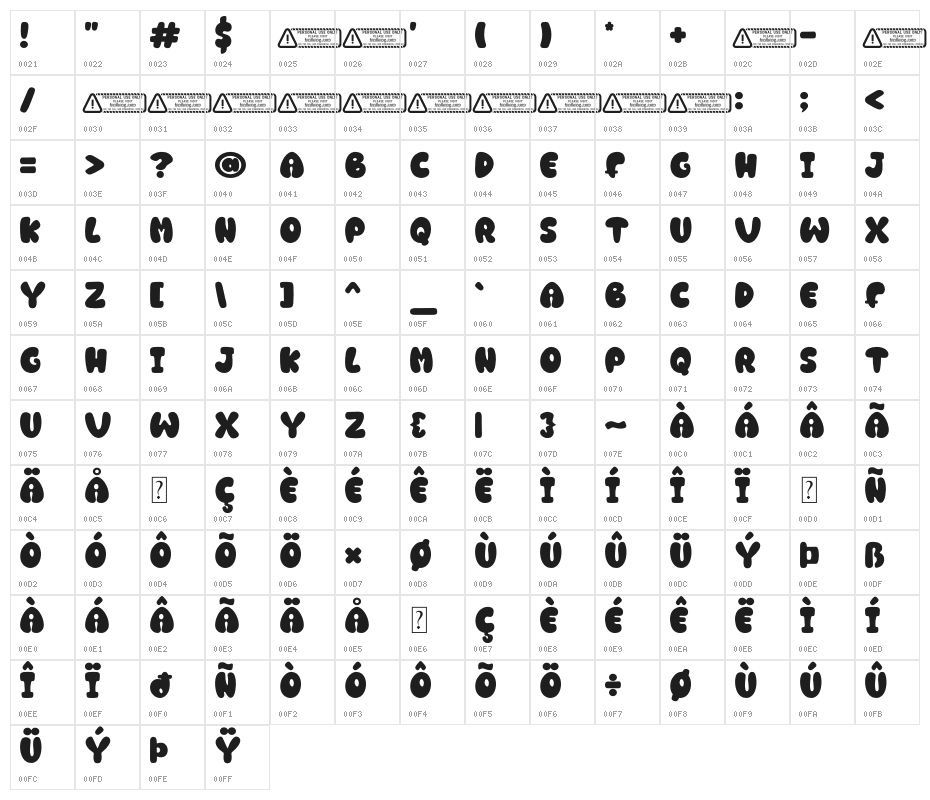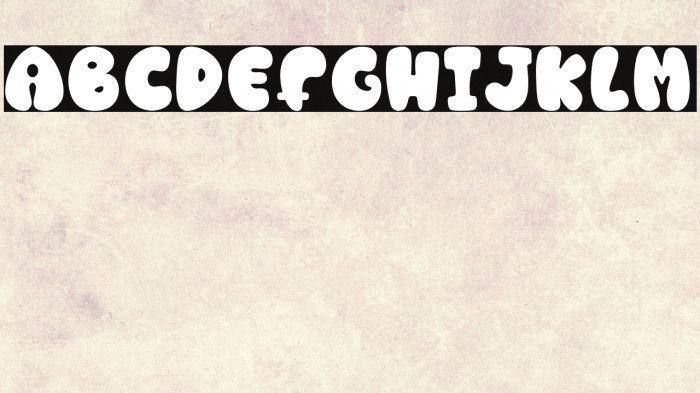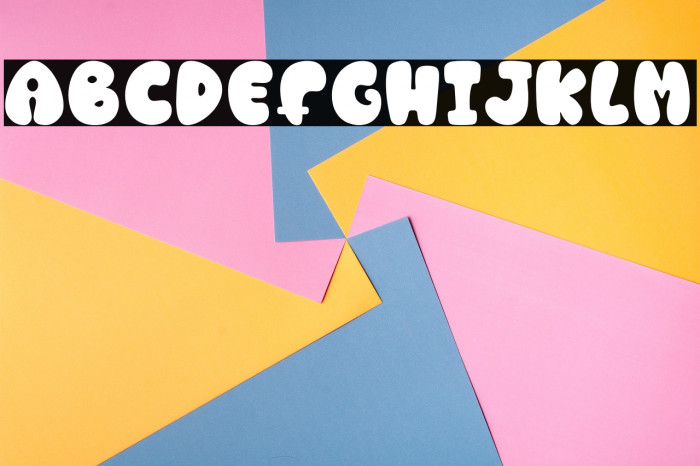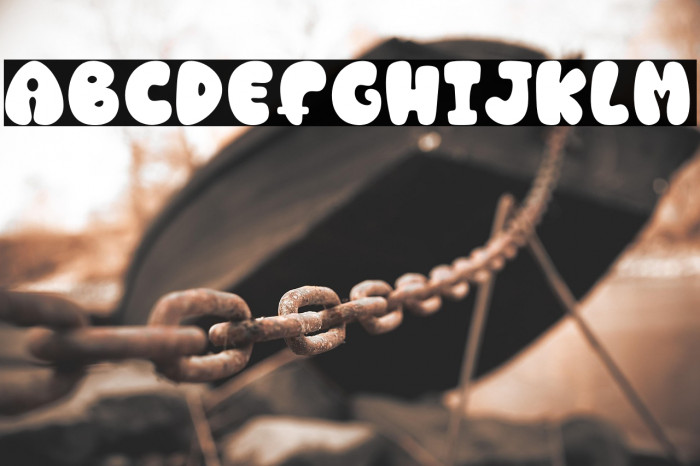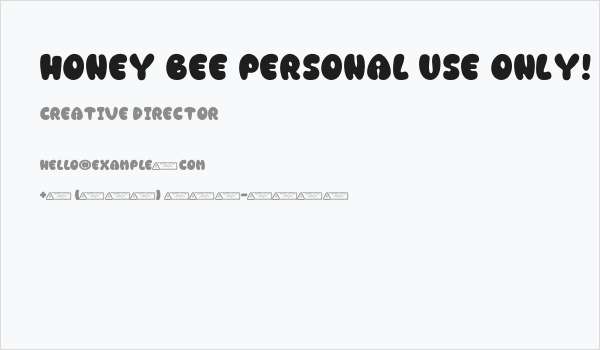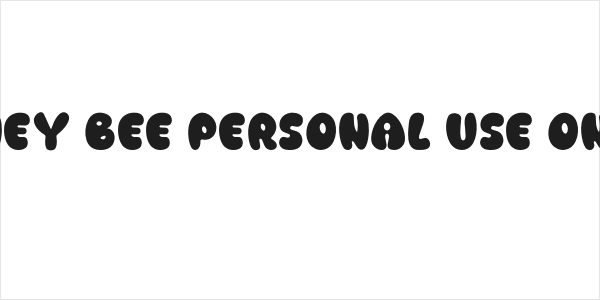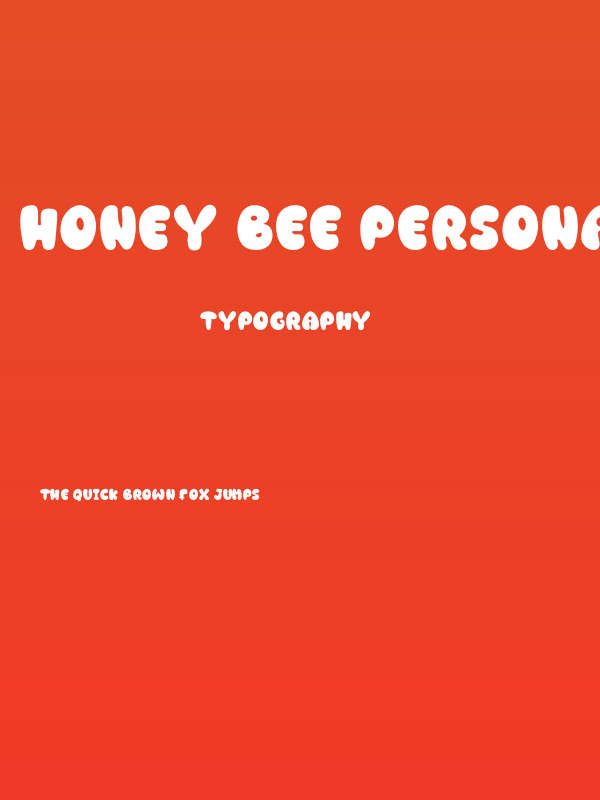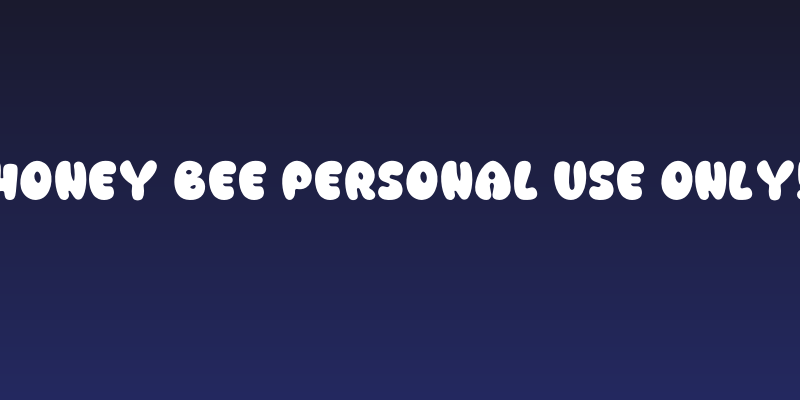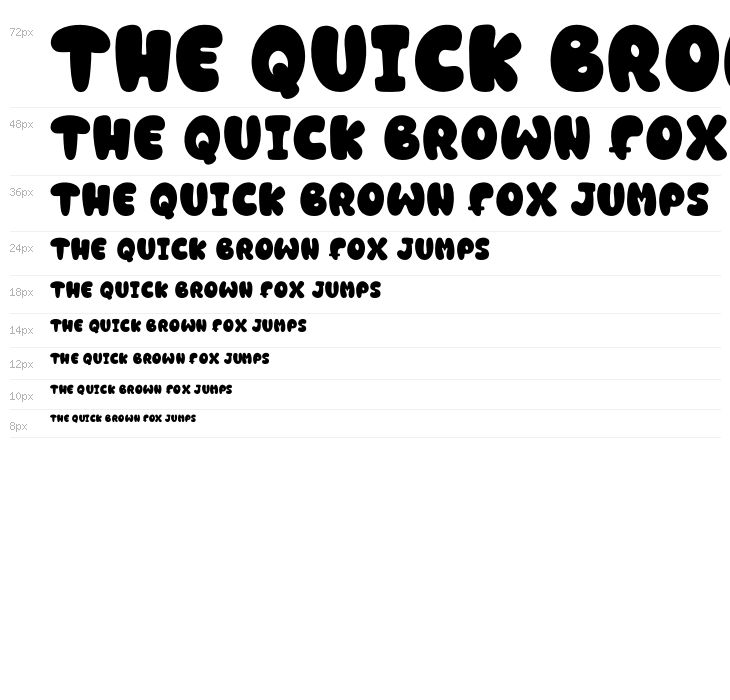
Honey Bee PERSONAL USE ONLY! Font
Honey Bee PERSONAL USE ONLY! Description
This playful and bold font features rounded, bubble-like characters that exude a sense of fun and whimsy. The letters are thick and uniform, with a consistent stroke width that gives them a cohesive appearance. The overall design is reminiscent of a cartoon or comic style, making it ideal for projects that require a lighthearted and approachable feel. The uppercase and lowercase letters maintain a similar style, ensuring readability while adding a touch of personality. The special characters are designed to match the playful theme, making them suitable for creative and informal contexts.
| Use Case | Headlines, Logos, Posters, Invitations |
| Proposed Projects | Ideal for children's books, comic strips, playful branding, party invitations, and any project that requires a fun and approachable aesthetic. |